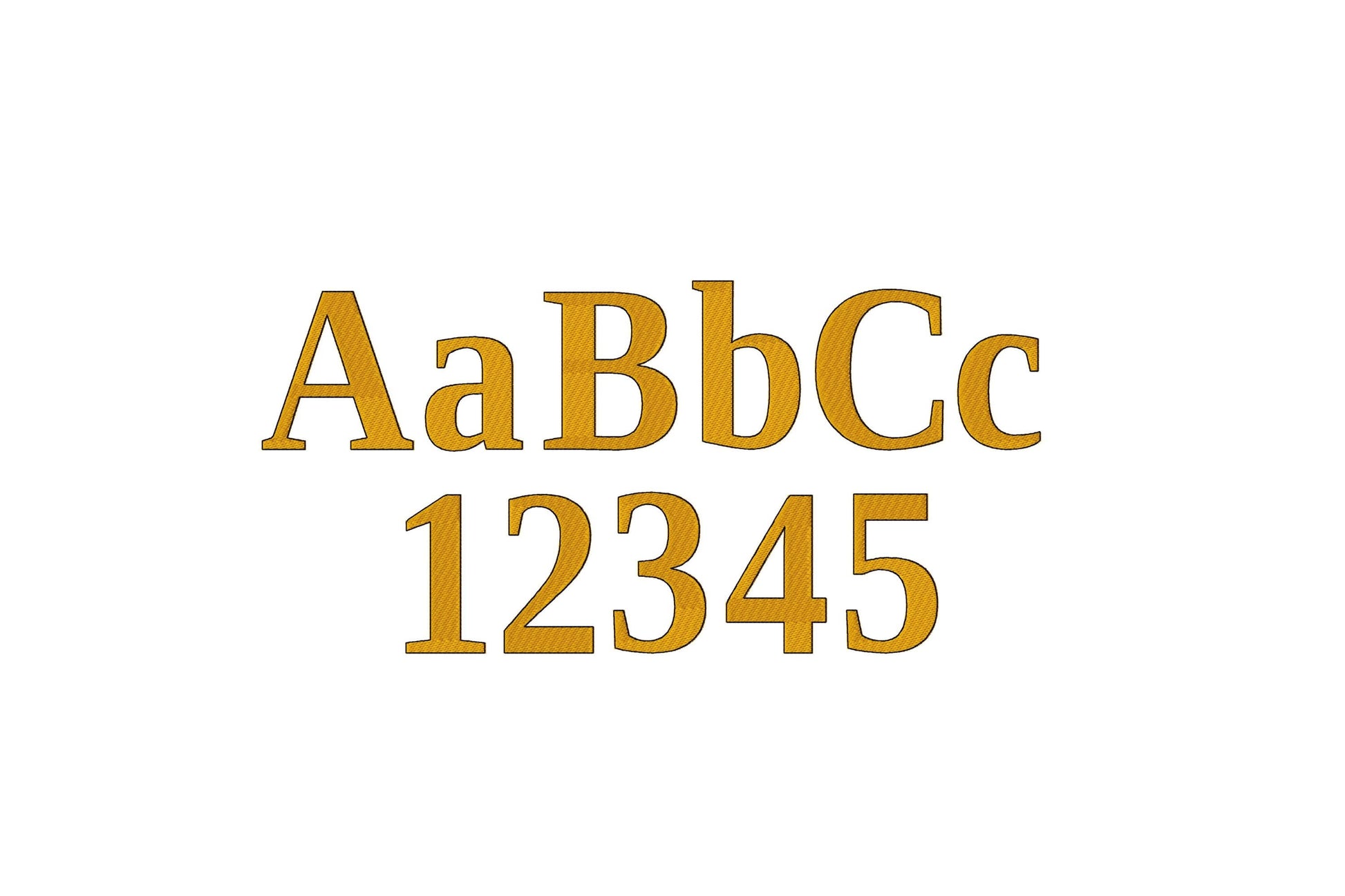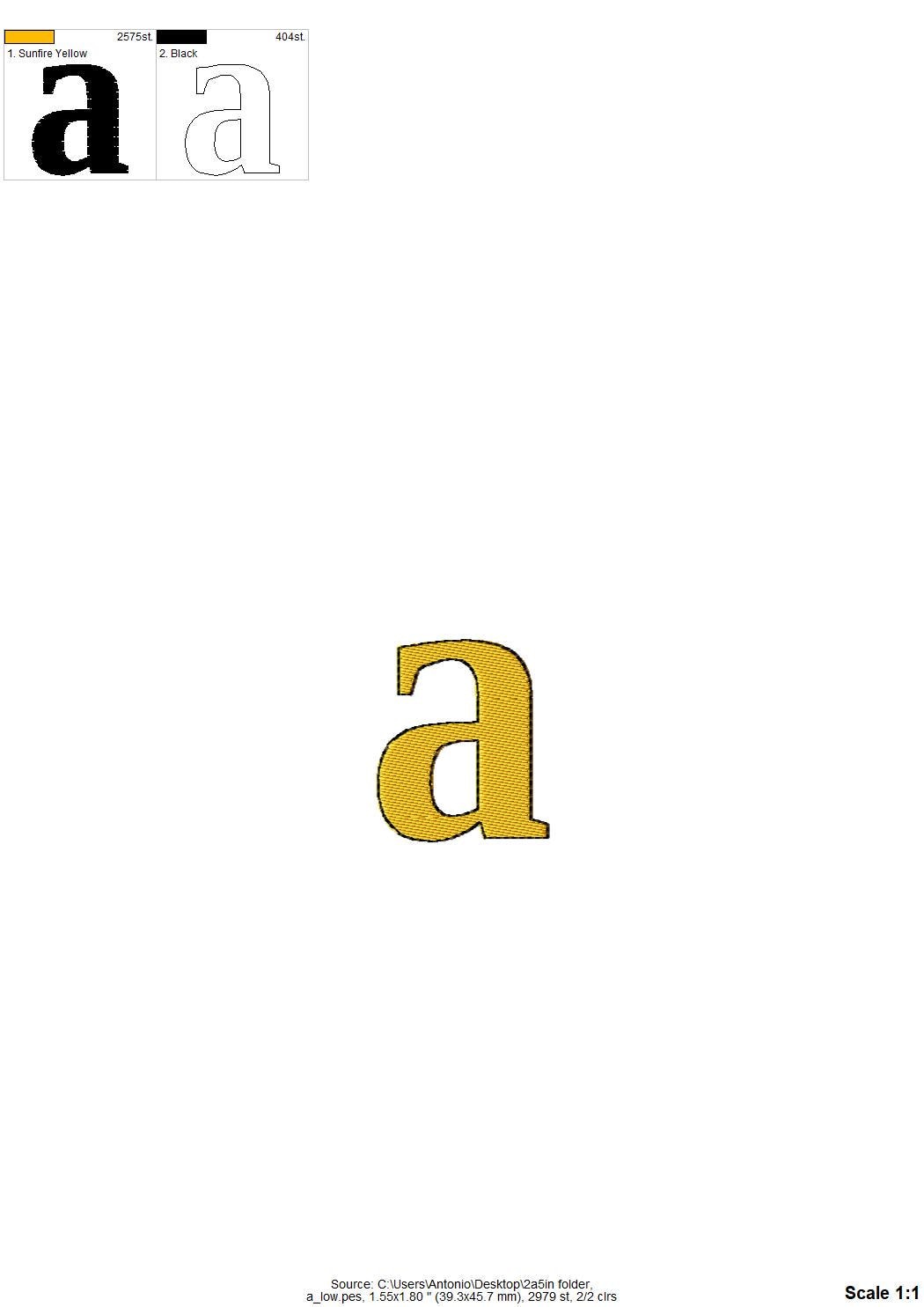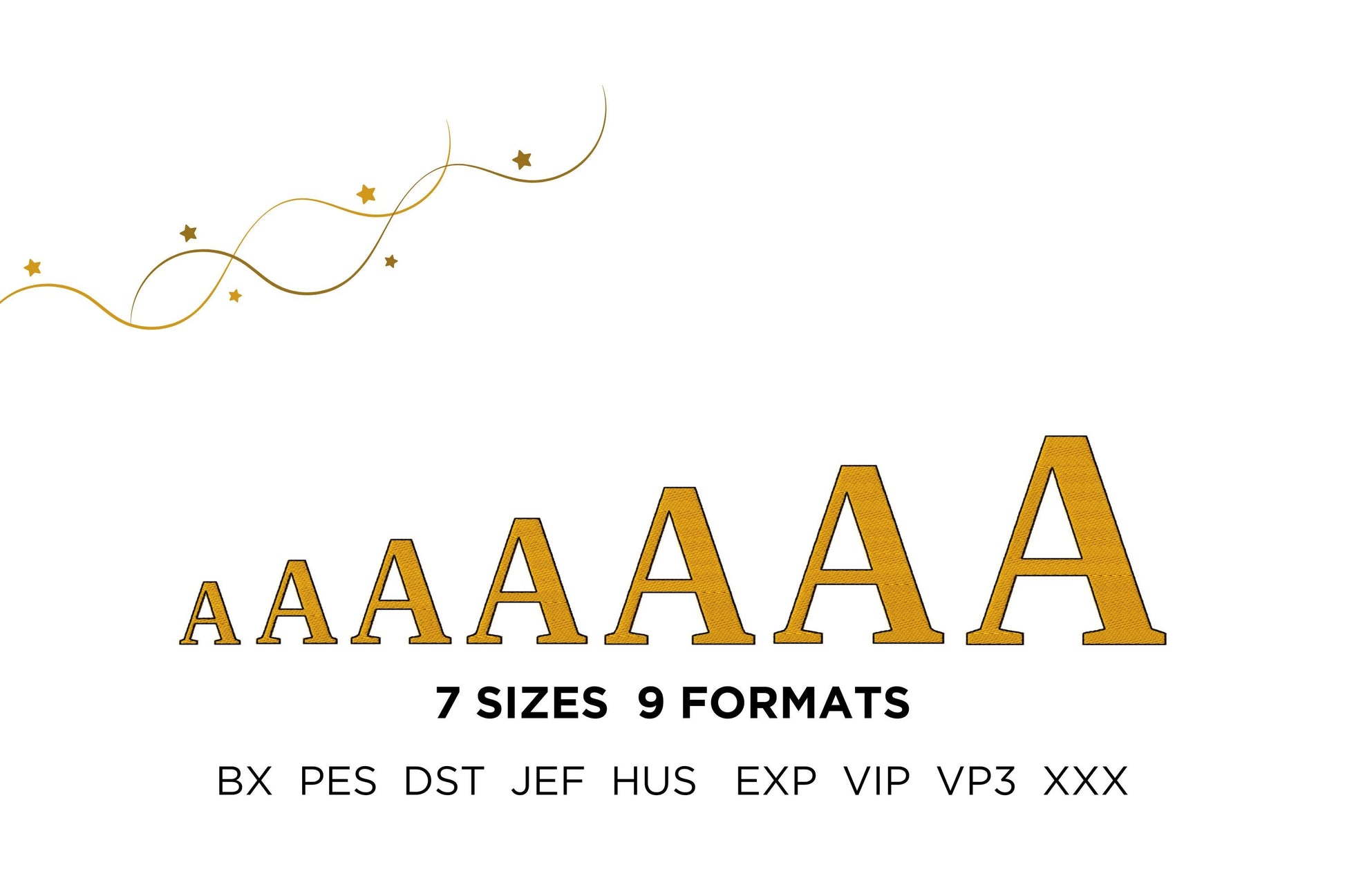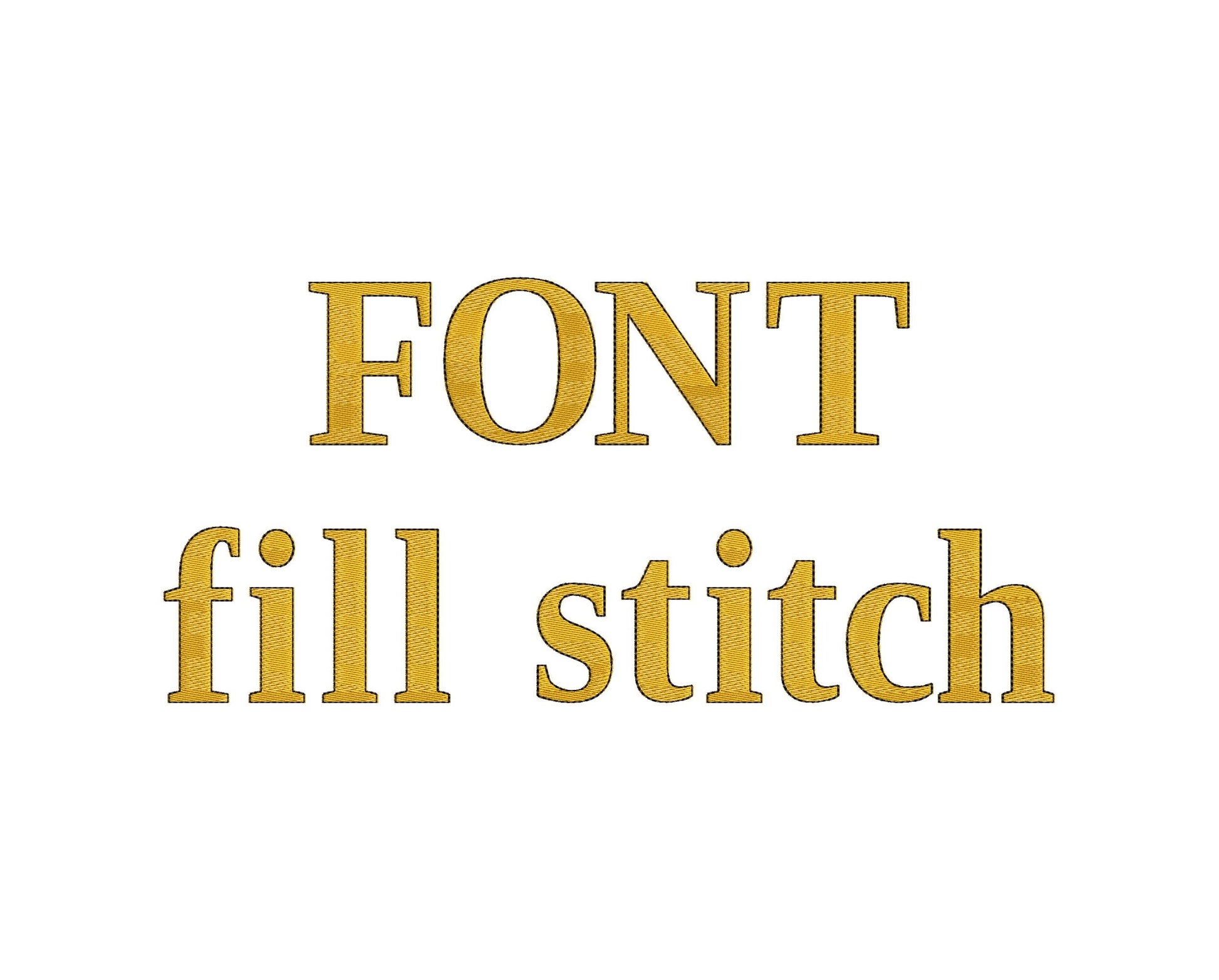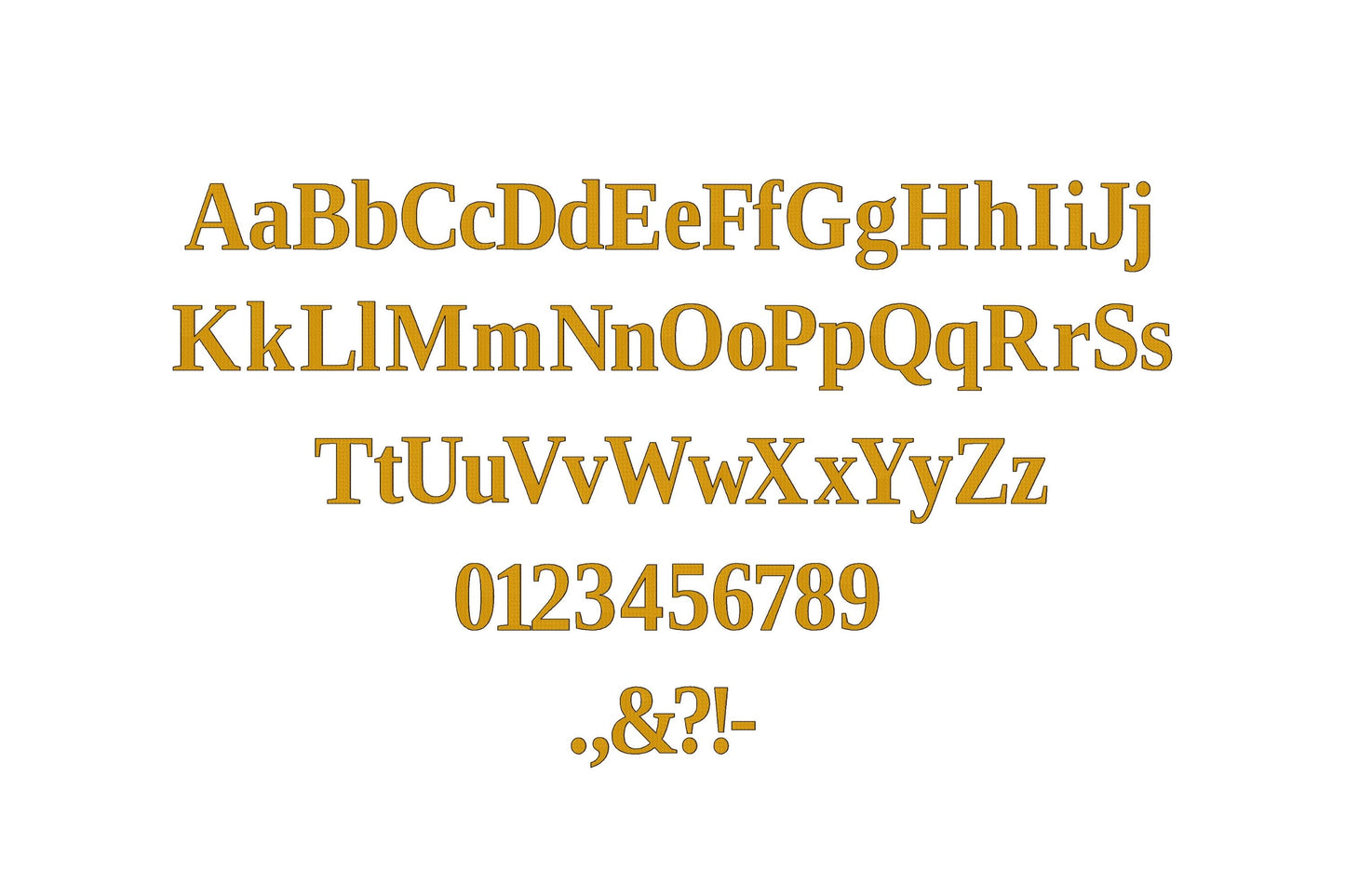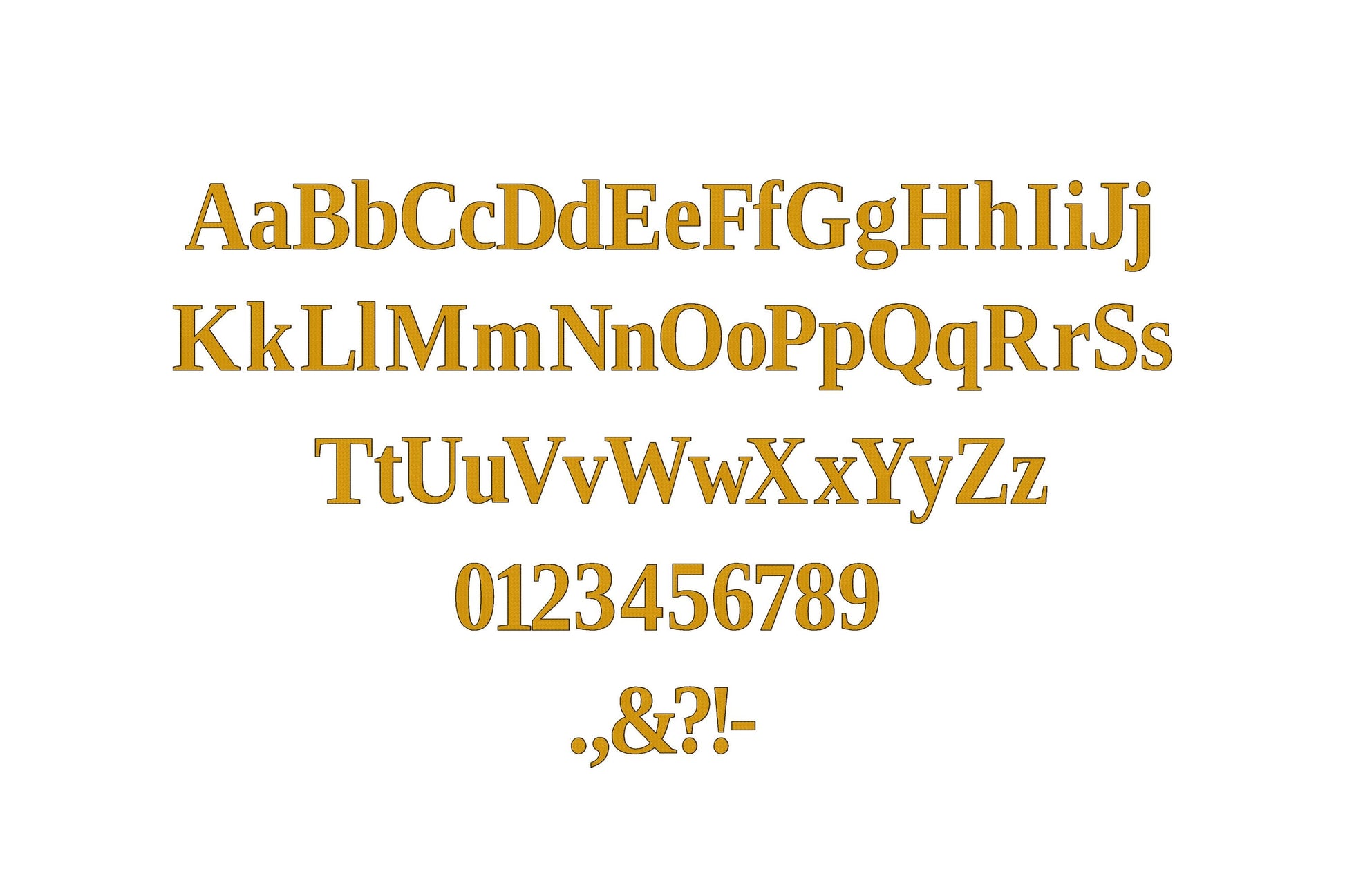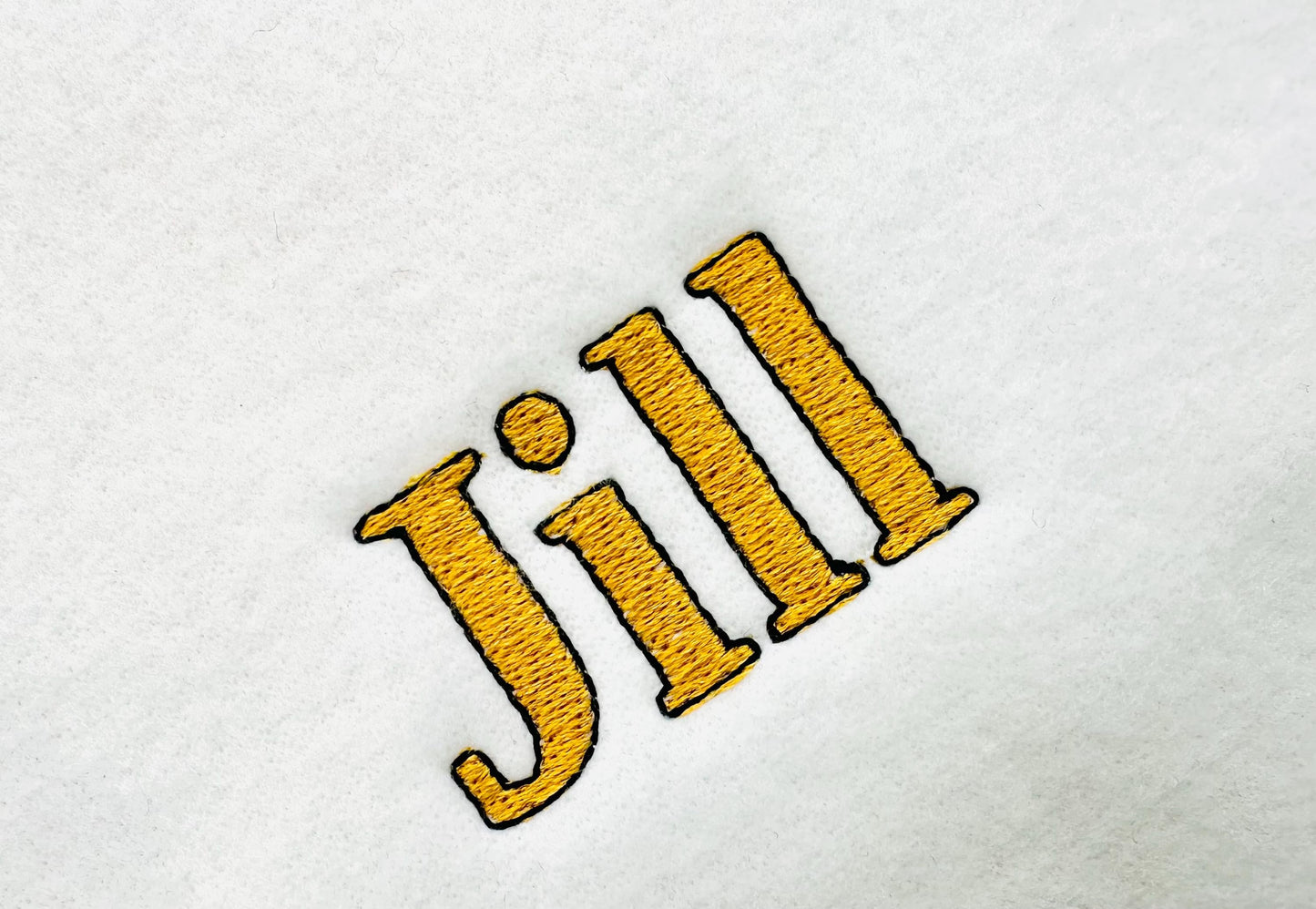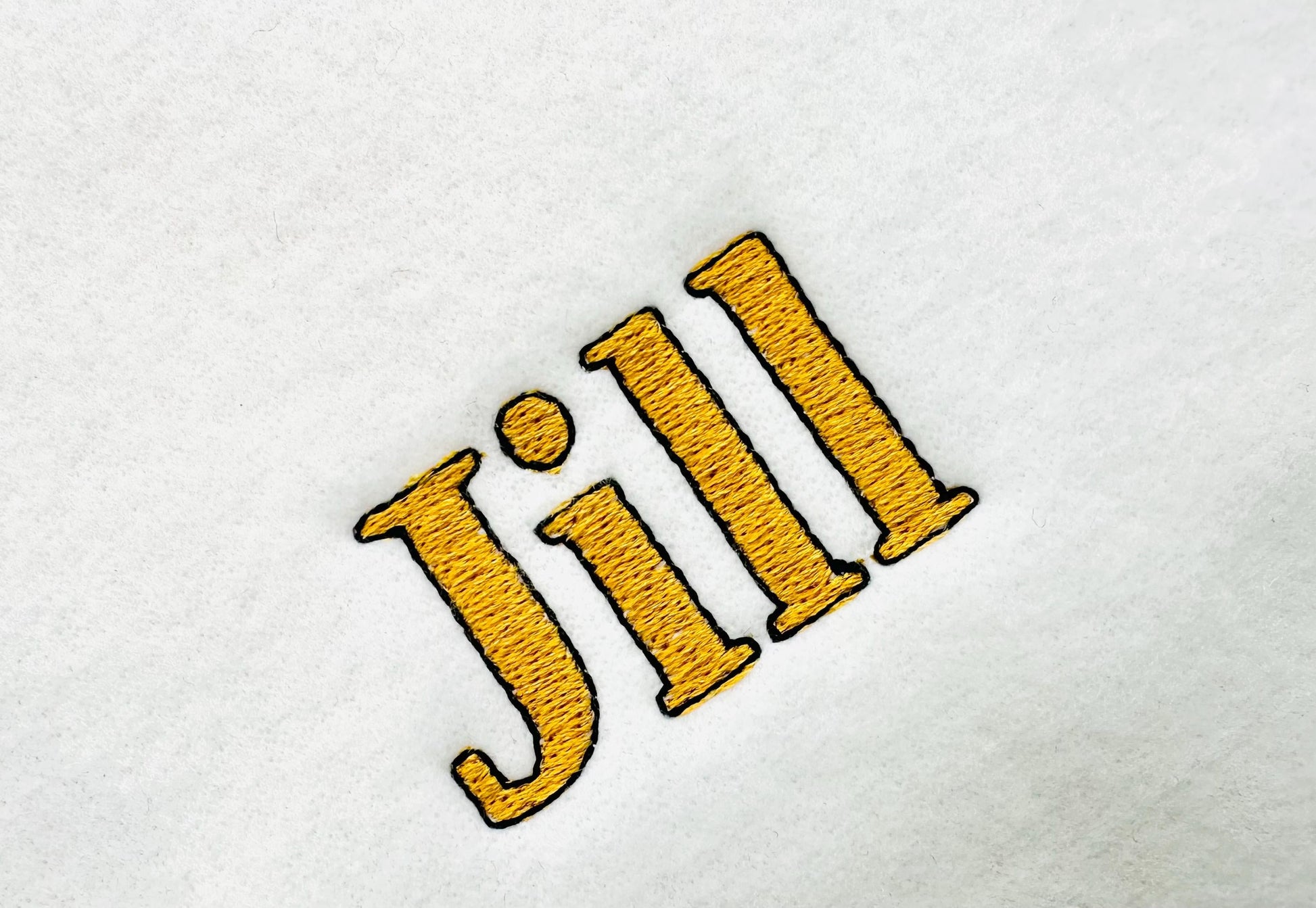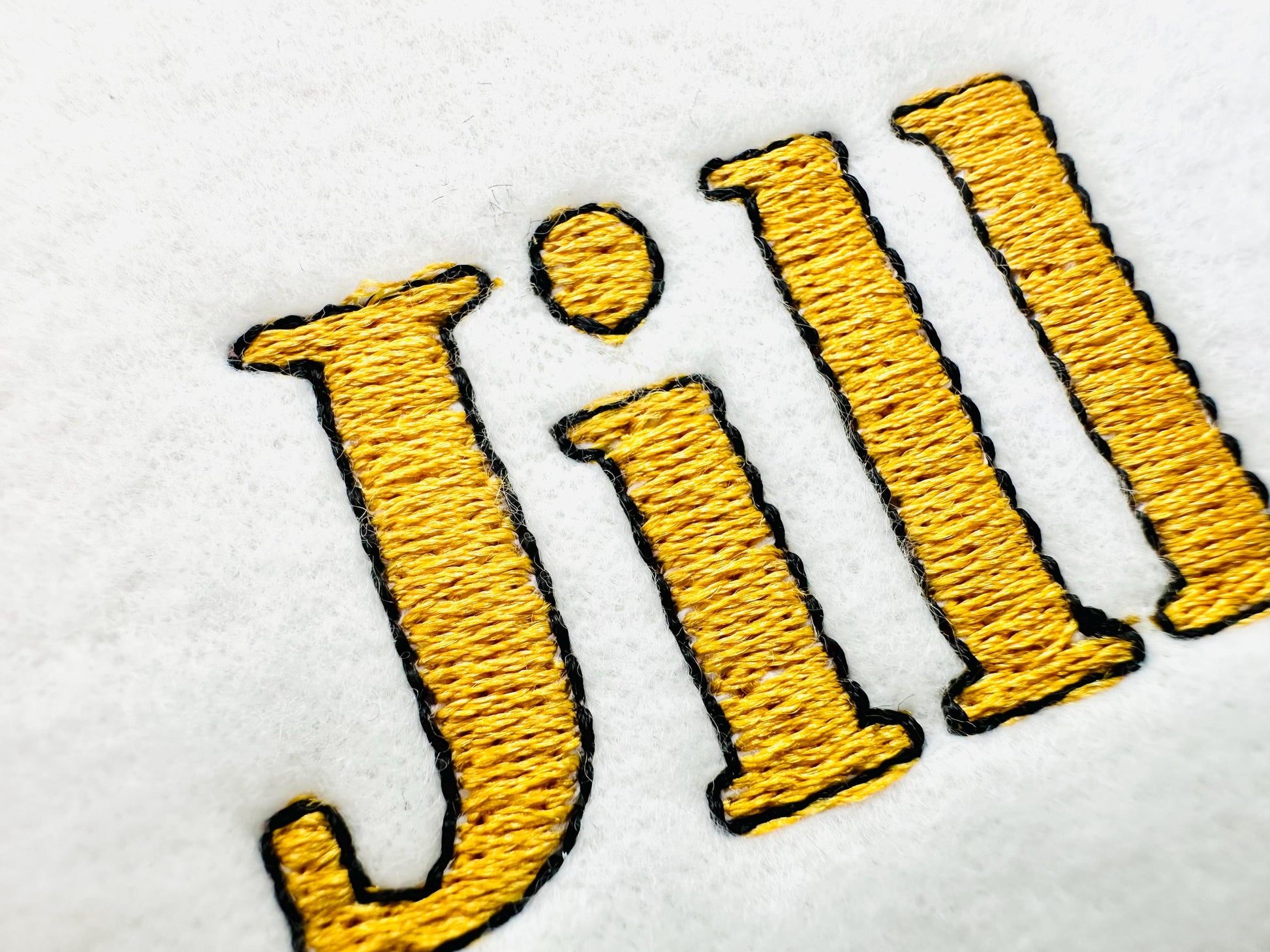
Elegant Font Jill Fill Stitch and Thin Outline
Or click to open the linkJill, an elegant block font in fill stitch with a thin outline. Classy for names, monograms, towels and gifts.
Uppercase and lowercase letters, numbers 0 to 9 and punctuation, in seven small sizes: 1, 1.3, 1.7, 2, 2.5, 2.8 and 3.3 inches.
- Elegant fill stitch font with thin outline
- Uppercase and lowercase letters, numbers 0-9, punctuation
- 7 sizes, 1 to 3.3 in